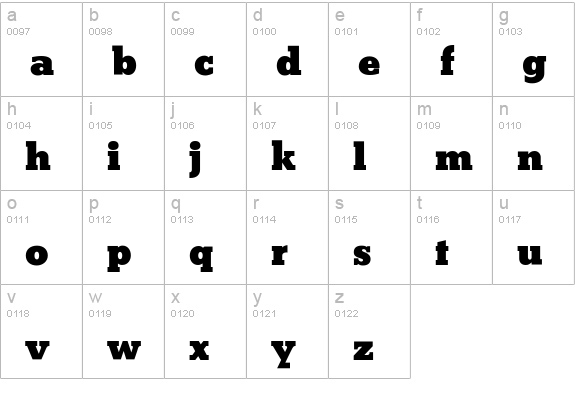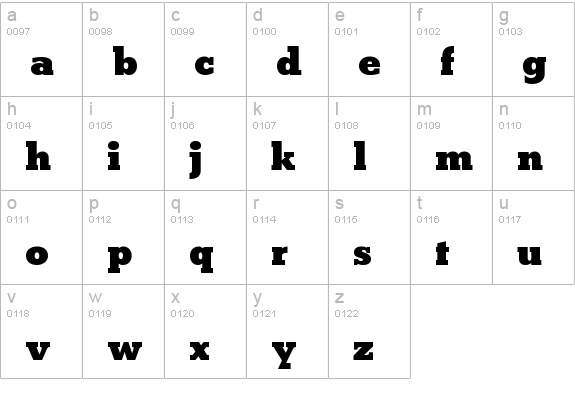
CgBetonExtraBold Font Details
Introducing CgBetonExtraBold, a bold and impactful font designed to make a statement in your projects. With its strong and sturdy appearance, this typeface exudes confidence and modernity. Perfect for headlines, titles, and branding materials, CgBetonExtraBold commands attention and adds a touch of boldness to any design. What's even better is that CgBetonExtraBold is available for free download at FontsMarket.com. Now you can easily access this striking font and use it to elevate your creative projects without any cost. Don't miss out on the opportunity to enhance your designs with the bold and powerful presence of CgBetonExtraBold. Download it today and make a bold statement with your typography.